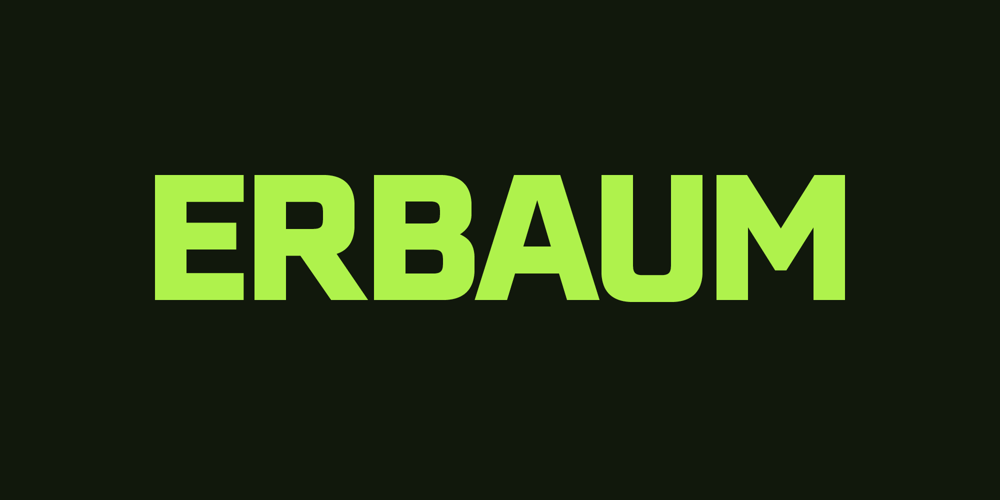
Erbaum Font Family was designed by Mariya Lish and published by Inhouse Type. Erbaum contains 7 styles and family package options. Erbaum is a display square sans serif type family. It is straight-forward in overall structure, simple and rational in details. Erbaum was designed to maximise clarity, with an emphasis on construction and pragmatic aesthetics. The concept behind this typeface was uncompromisingly function driven, which was to provide a clear and effective medium for communication and a modern alternative to similar fonts in the aforementioned category. Extended x-height and sharp details aid legibility. Other features include seven weights, Cyrillic, alternative characters and various OpenType features.